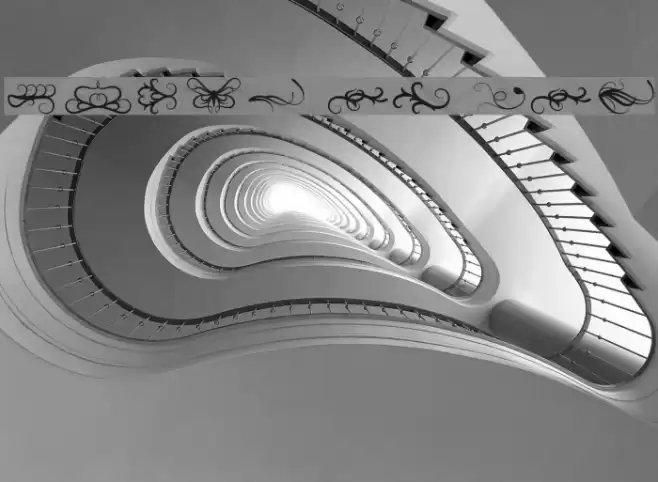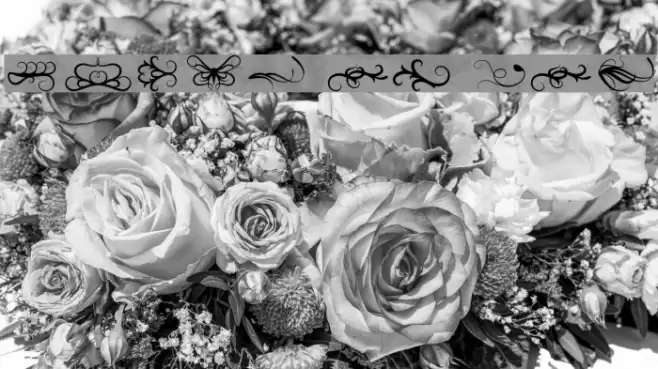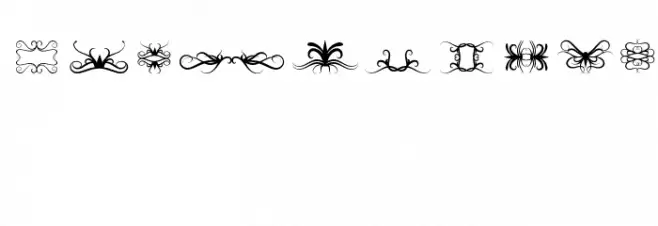
Tears Of Joy Font
Tears Of Joy Description
A collection of highly decorative, ornate glyphs and flourishes with intricate swirls and embellishments, resembling vintage calligraphic ornaments rather than standard alphanumeric characters.
Ornamental flourish dingbats with elaborate, vintage-inspired designs from Uncategorized fonts.
- Proposed Projects: Wedding invitations, certificates, decorative borders, vintage posters, scrapbooking, branding accents.
- Overall Style: Decorative, Vintage
- Use Case: Borders, embellishments, decorative accents